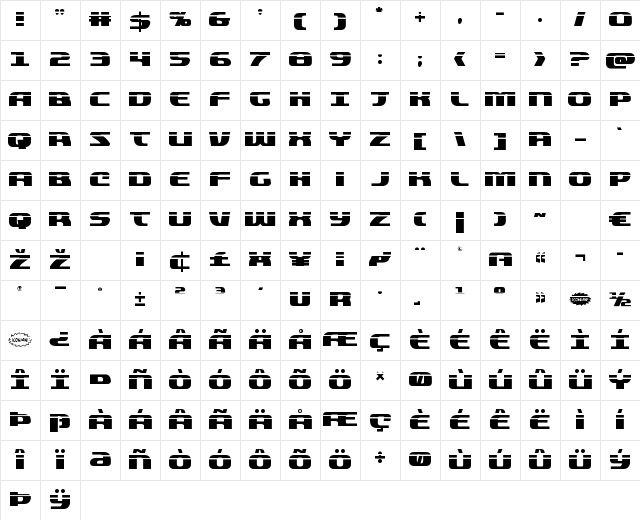
Quickening Laser Regular Free Font
Quickening Laser Regular
Design Context for Quickening Laser
Quickening Laser is a composed and adaptable typeface that performs quietly and consistently across a wide range of design contexts.